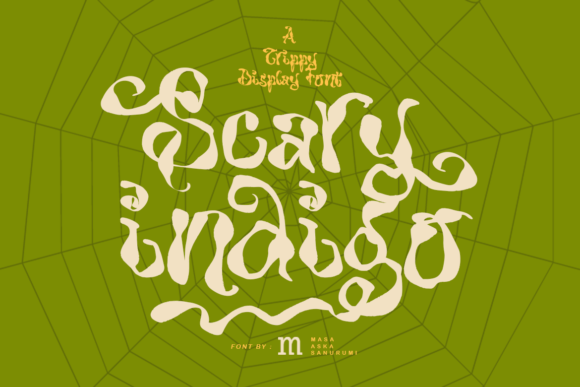
**Unleash the Spine-Tingling Charm with Scary Indigo: The Business Card Font That Will Haunt Your Customers' Minds**
In the realm of business branding, first impressions are everything. And what better way to make an unforgettable impact than with a business card that exudes both professionalism and a touch of the extraordinary? Introducing Scary Indigo, the display font that will cast a spellbinding aura over your cards, leaving a lasting impression on your potential clients.
**A Font That Embodies Intrigue and Sophistication**
Crafted by the visionary Masa Aska Sanurumi, Scary Indigo is a masterpiece of typographic art. Its distinctive characters dance with a subtle creepiness, evoking a sense of mystery and intrigue that will captivate your audience.
**The Perfect Canvas for Your Business Identity**
Whether you're a designer seeking to create eye-catching logos or an entrepreneur looking to establish a memorable brand, Scary Indigo provides the perfect canvas to showcase your business identity. Its versatility allows it to adapt seamlessly to a wide range of design styles, from the classic and sophisticated to the edgy and unconventional.
**Elevate Your Cards to New Heights of Distinctiveness**
With Scary Indigo, your business cards will transcend the ordinary and become true works of art. Each stroke of the font exudes a captivating charm that will make your cards stand out from the crowd.
**Make a Statement That Resonates**
In a world saturated with generic fonts, Scary Indigo offers a refreshing and distinctive alternative. It's a font that speaks volumes about your business—a business that values creativity, originality, and the power of making a bold statement.